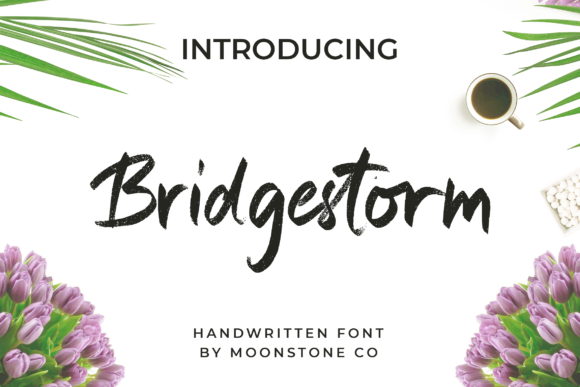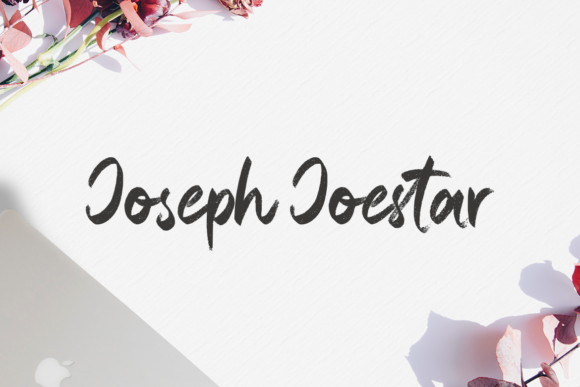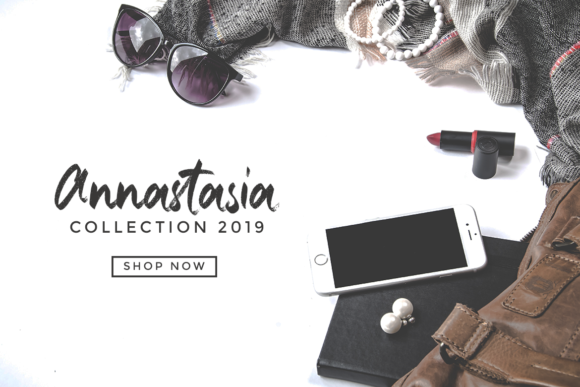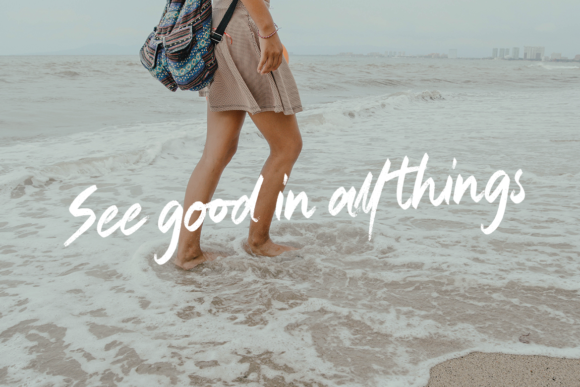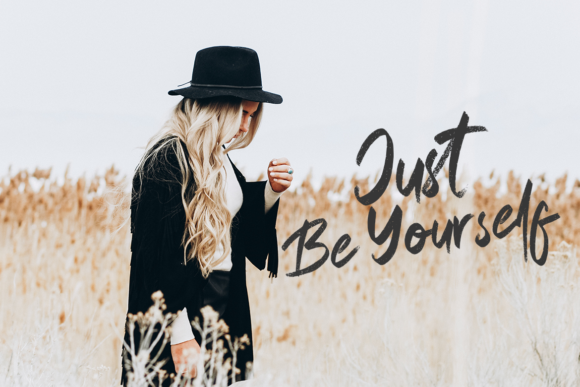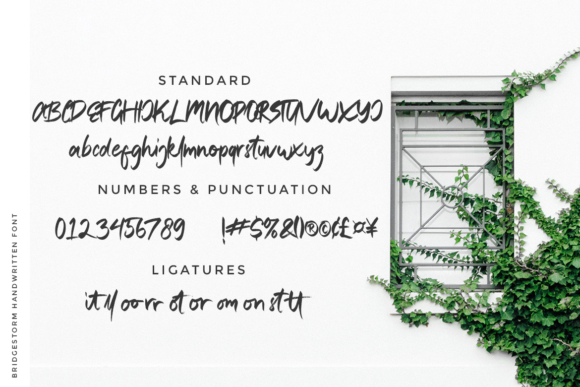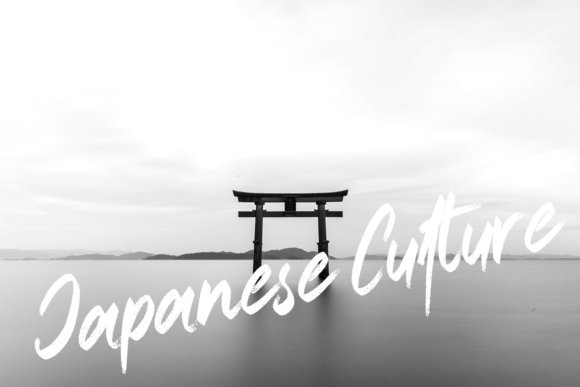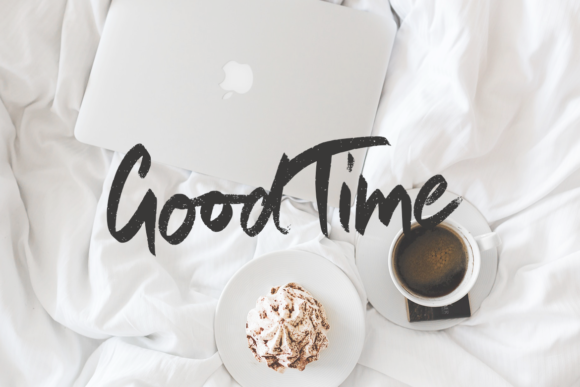
Bridgestorm Font
About Bridgestorm Font
Bridgestorm is a unique and romantic handwritten font with a charming style. It will add a friendly feel to any crafting project!